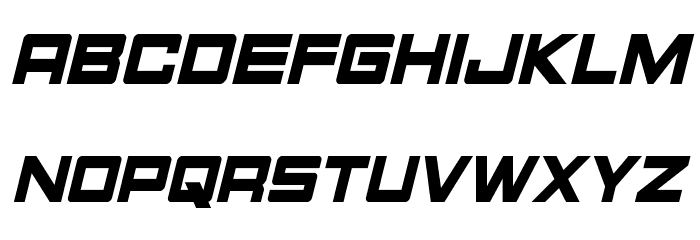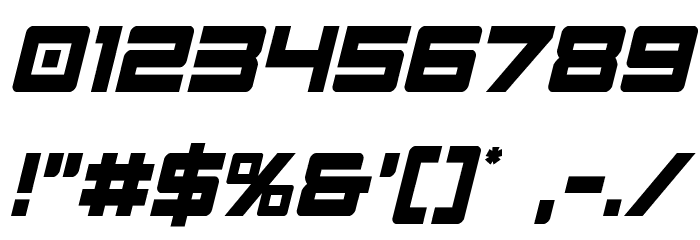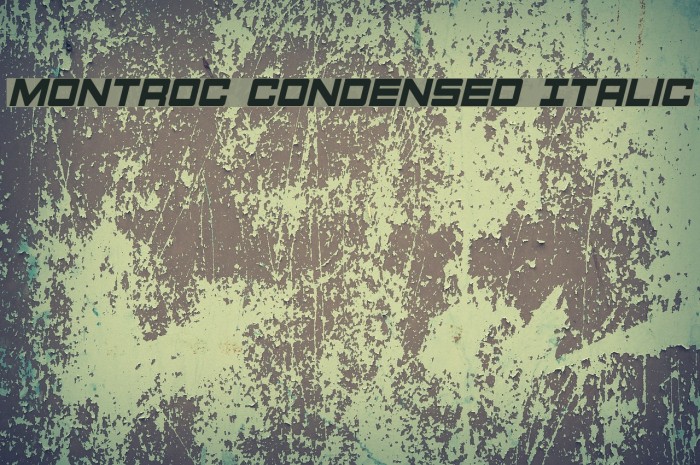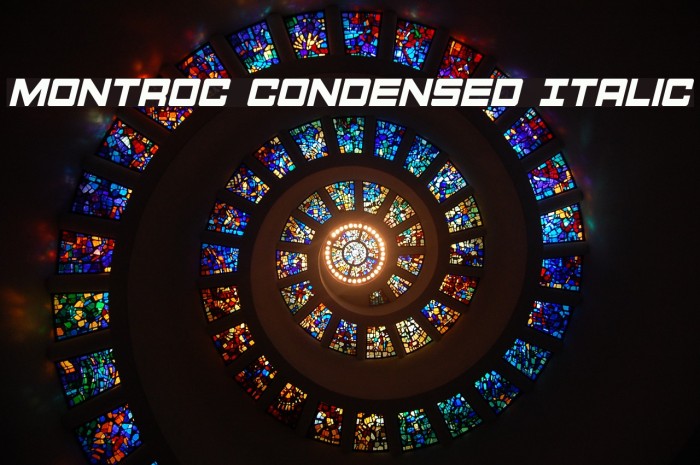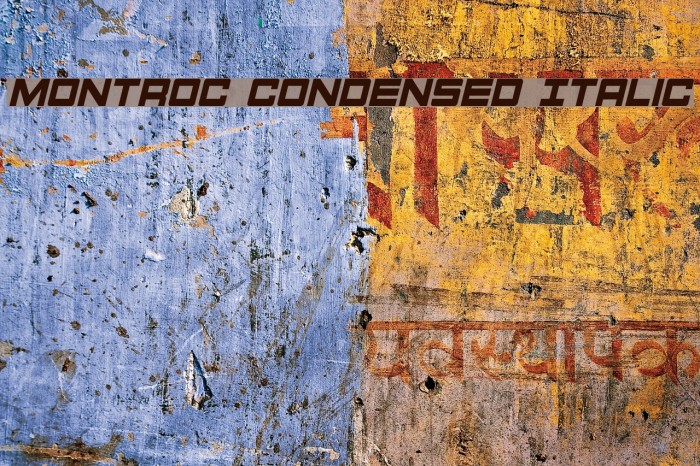
Montroc Condensed Italic Font
This font features a bold, condensed style with a modern and sleek appearance. The italicized letters add a dynamic and forward-leaning aspect, making it ideal for projects that require a sense of motion or speed. The characters are designed with a consistent stroke width, providing a uniform and cohesive look. The angular and geometric shapes of the letters give it a futuristic and technical feel, suitable for technology or automotive branding. The spacing between characters is tight, enhancing the compact and efficient design. Overall, this font is perfect for making a strong visual impact in headlines or logos.
A bold, condensed, and italicized font with a modern, dynamic style.
- Proposed Projects: Ideal for technology branding, automotive logos, sports team merchandise, and dynamic headlines.
- Character Spacing: Tight